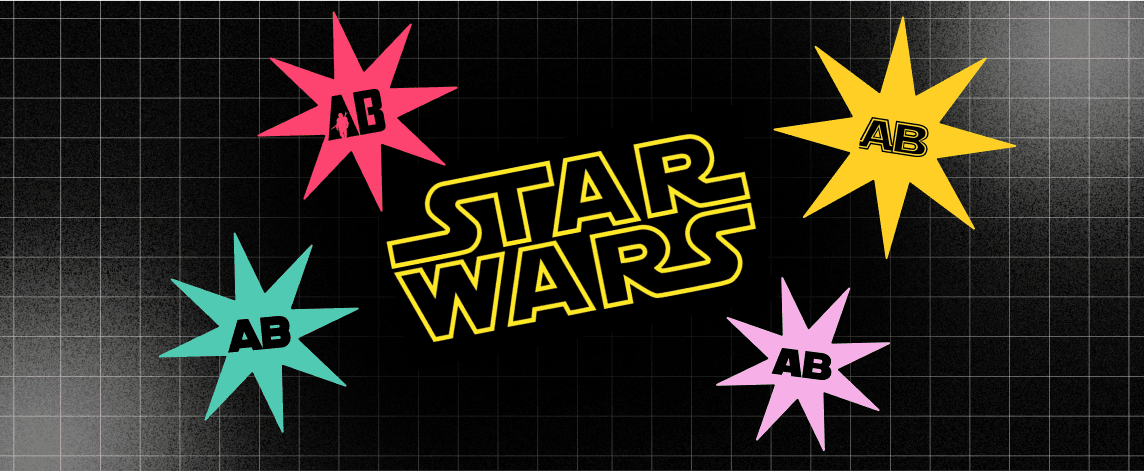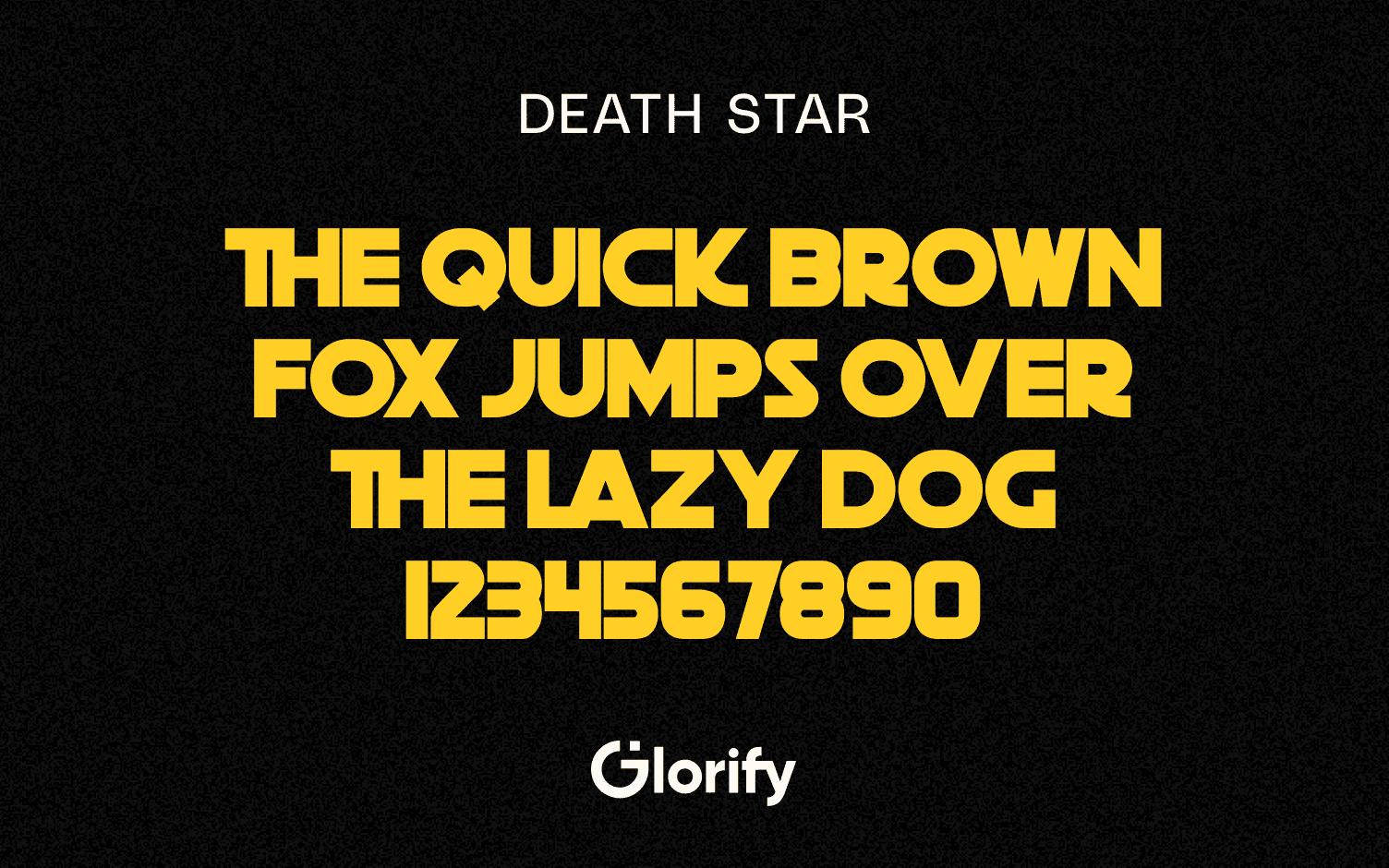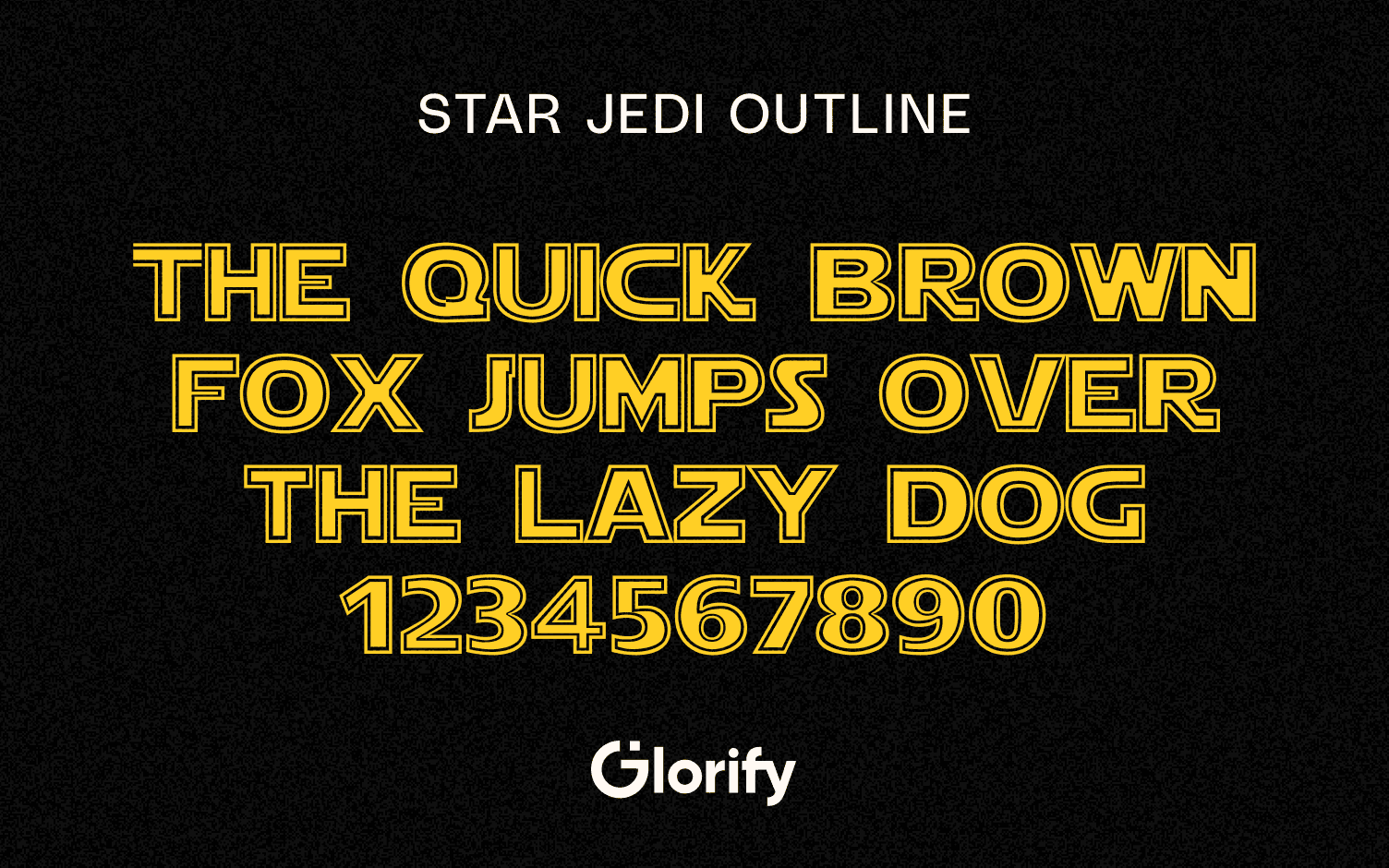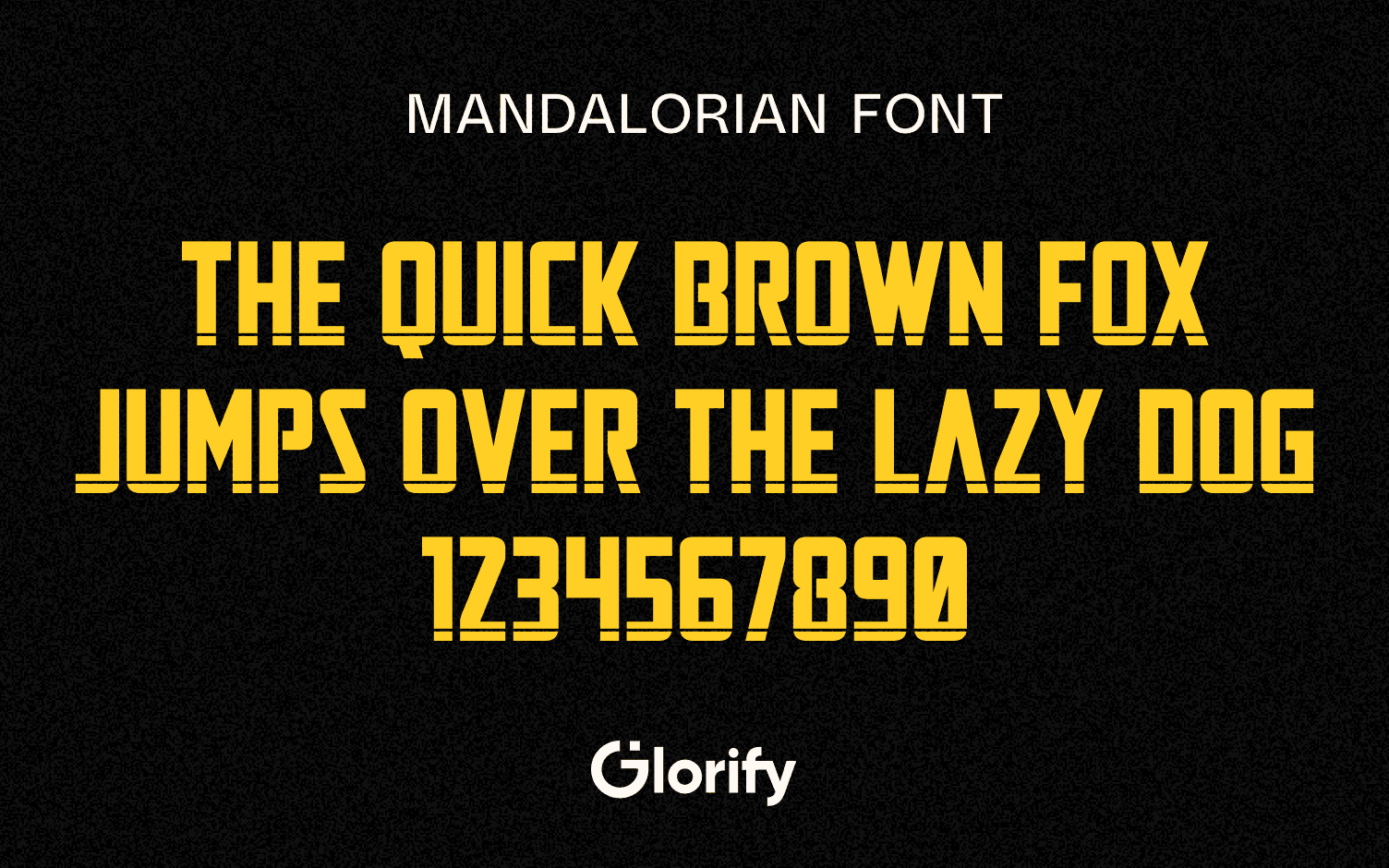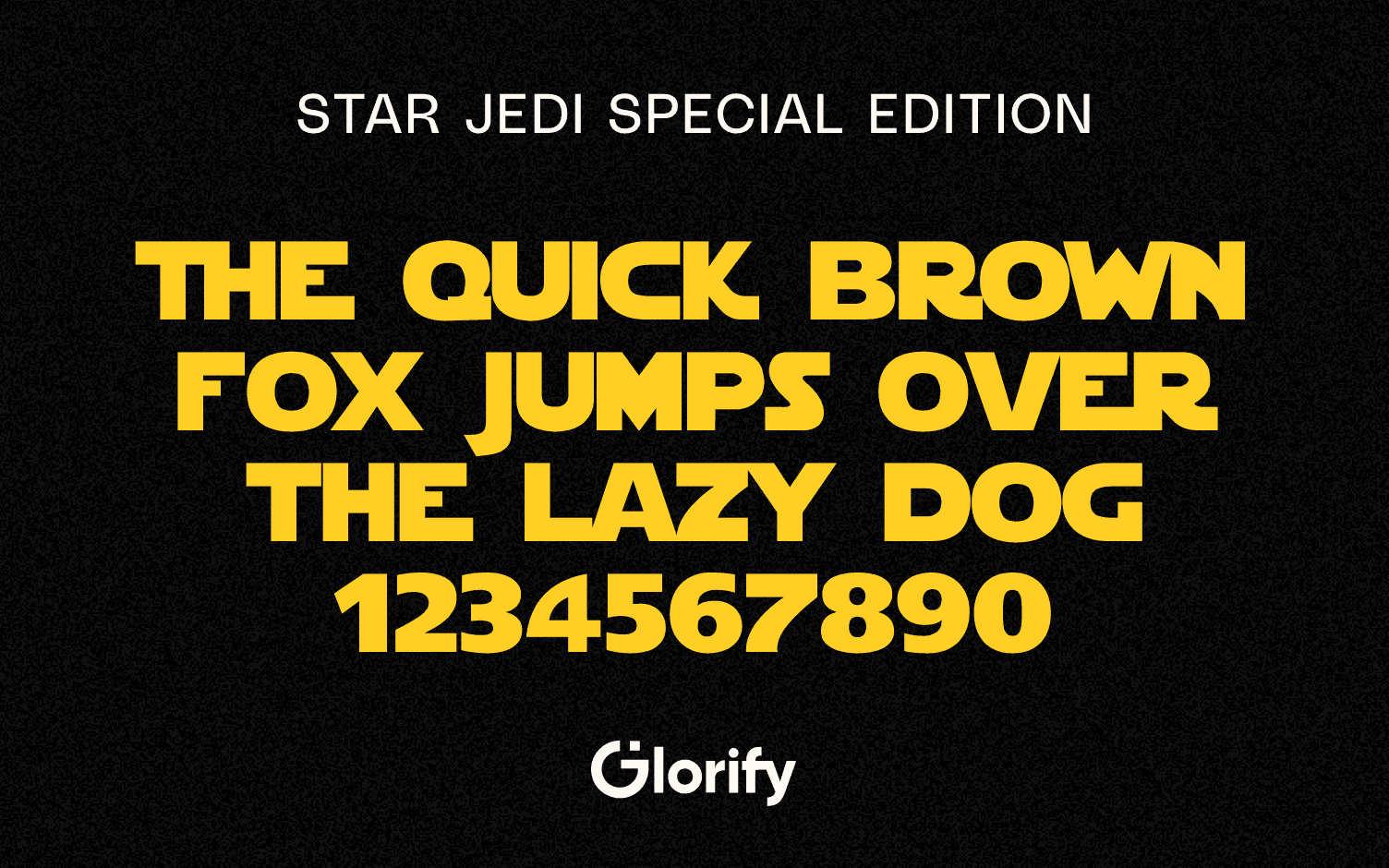
7 top Star Wars fonts
What is the Star Wars font?
This is not a straightforward issue you would imagine. During the years, directors have tweaked and polished the designs, to the fans’ outrage.
The famous phrase ‘Far, far away…’ written in a cool blue typeface, ‘Years ago in a faraway galaxy.’
In the beginning, a ‘once upon a time’ lettering for this exterior was made by hand, so you won’t have a 100-per-cent match for the star wars font if you monitor a screenshot. However, in the new movies from Star Wars – from The Force Awakens – the makers have been using a digitized font version of the font Franklin Demi.
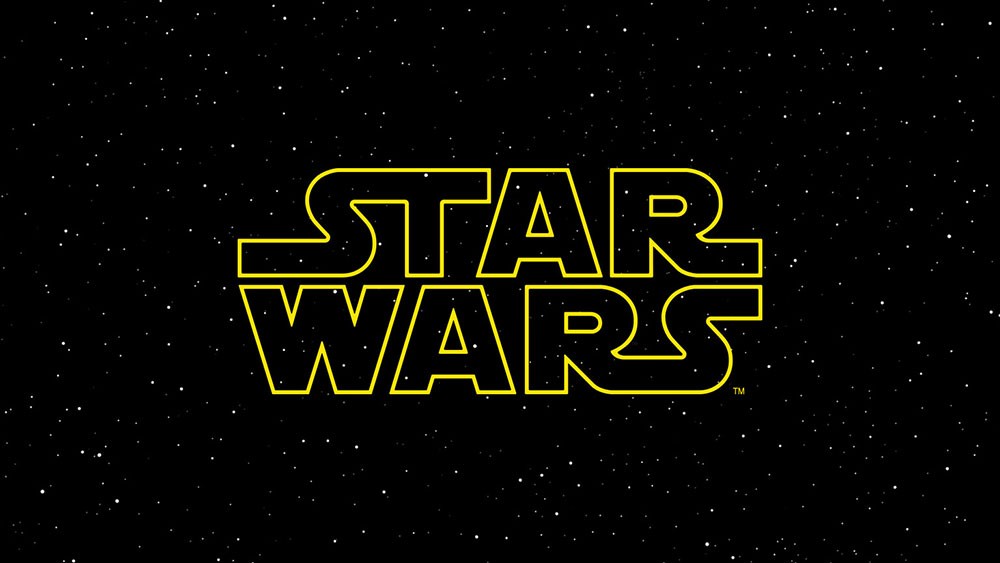
As that line disappears, we get amazed at the spectacular opening fanfare of John Williams and leave them in awe as Star Wars’ logo occupies the screen and then falls away. Shortly afterward, the opening crawl comes up and fills us with this plot.
A swarm of font mystery is the opening crawl. For each film and the Crabble Text itself, the latest Star Wars films use the latest Gothic edition as the star wars font. This goes against earlier films, which uses the Universe font as the font for the title and News Gothic font as for the font for the script of the crawl.
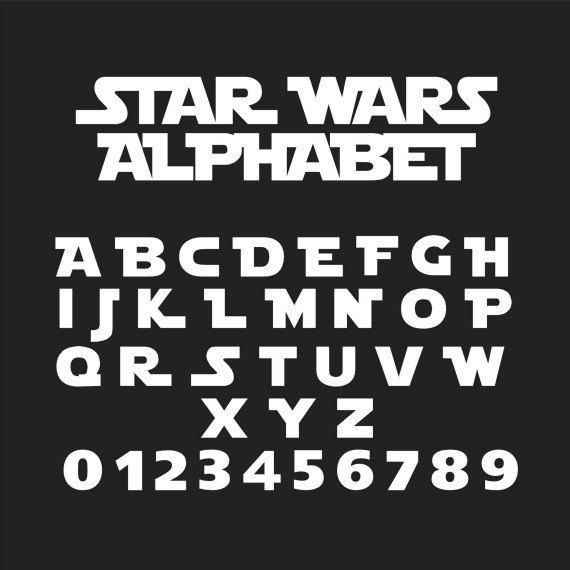
Are these too many star wars fonts to keep track of already? Well, we have only scratched of all the Star Wars fonts ever used. Remember, the film’s logo has been changed several times as the developers are trying to adhere to a theme.
Seven variants of the font have been rounded up in the list below.
Space Wars: The last emblem of Jedi turns red and sends the Internet down as fans try to grasp what it might mean.
Another experiment saw the Star Wars font as:
However, fortunately, the logo in the movie itself stayed yellow.
Let’s have a look at all the seven star wars fonts used in the history of the Star Wars-
01. Star Jedi
Jedi perfectly recreates the emblem of Star Wars
You know that when a designer named Boba Fonts handles your free Star Wars fonts, you are in safe hands. Boba Fonts completely recreated the logo with Star Jedi and ready to satisfy all your requirements. There are a variety of variants and links to this angled, capital font.
02. Mandalorian font
This star wars font is part of the TV series.
This Mandalorian font is the same variant of the Mandalorian typeface, as seen on the 2004 Star Wars DVD version and Episode II Visual Dictionary. The announcement of the new TV series is particularly timely and will also be useful for video makers who want to get their YouTube feedback on their brands.
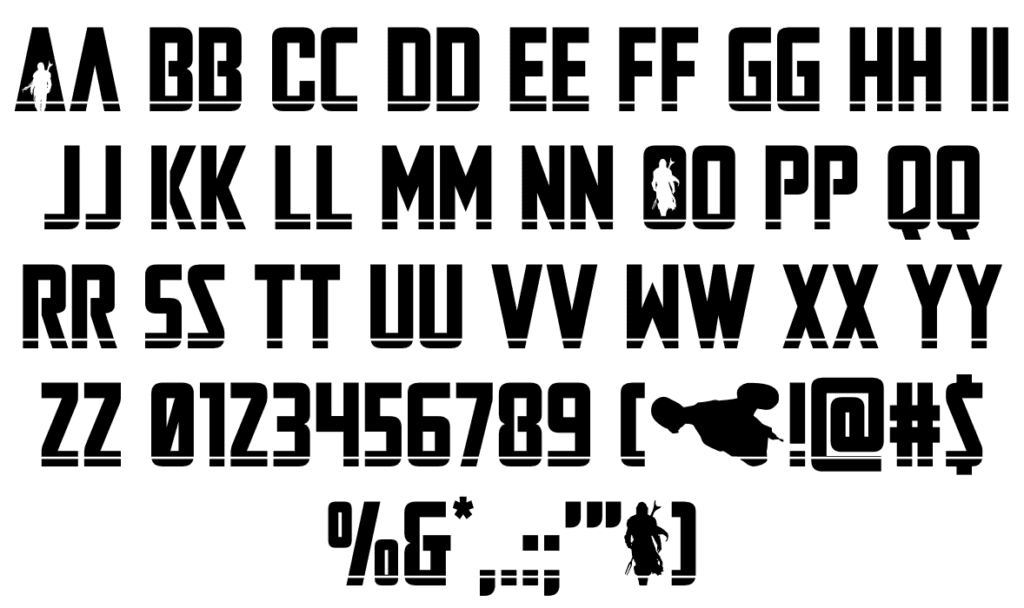
03. SF Distant Galaxy
The kit of symbols incorporates film-inspired logos.
Set in 10 different types, this Star Wars font is influenced by an encounter in a distant galaxy and is fully free. It also has a pack of icons like movie logos.
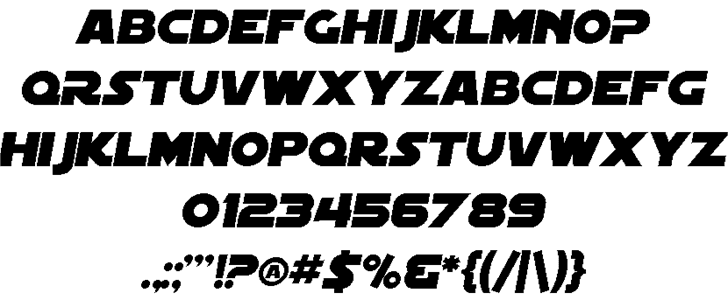
04. Death Star
This star wars font can’t be better introduced than in the words of its maker, the sharkshock, so we’ll simply let them explain:
“In an ephemeral galaxy far away, there were few choices for fans of this epic show when they were searching for the right font to use in their projects. You need to have patience with young Jedi.
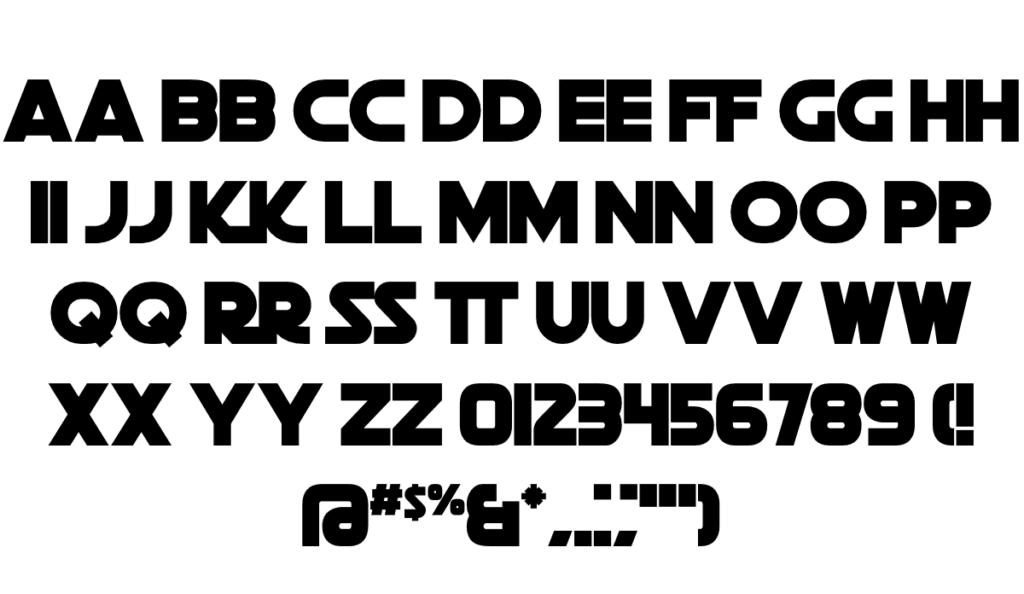
05. Star Jedi Outline
Star Jedi Outline star wars font can be used with other Boba fonts.
Oh, with the Star Jedi Outline font, good old, Boba Fonts did it again. As previously, this is a tilting all-capital font, but this time, the lettering has a thin outline as indicated by the name. This free star wars font is available for both private and organizational use.
06. Star Jedi Logo
Stack this typography to your favourite Star Wars fonts!
After the new font line from Star Jedi, Boba Fonts created the variation which enables single or double text lines to depict the Star Wars style perfectly. These stylish screens recall some artistic options used in advertisements for the Star Wars trilogy, often enclosed in a fine outline in the title of a film.
07. Star Jedi Special Edition
This star wars font actually is from an initial trilogy celebration.
The final version is based on the official Star Wars Trilogy Limited Edition logo lettering with its chunky letter designs. Recall when there was only one trilogy of Star Wars?
“A bold font from the original Star Jedi is Star Jedi Special Edition,” says Boba Fonts. “All the bottom cases are capitals, while the capitals are serif versions of the lowercase. You can create complex letter groups using a few basic connections.”